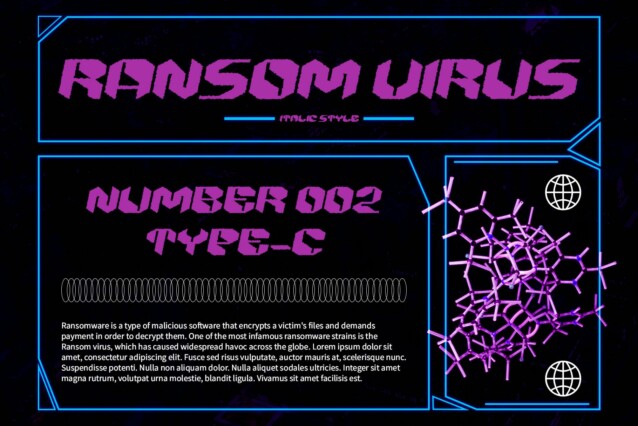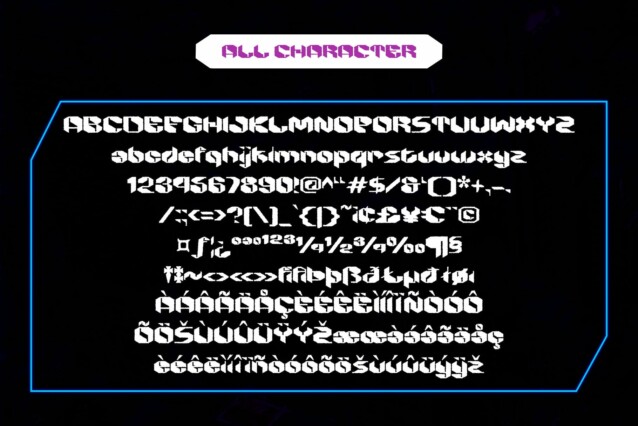
Alboth Rough Font
Alboth Rough Font: Embracing Futuristic Display Typography. Alboth Rough draws inspiration from the future, infusing its design with elements that evoke visions of innovation and progress. Its forward-thinking aesthetic sets it apart in the world of display fonts.
Rugged Yet Refined
Despite its futuristic inspiration, This font maintains a rugged charm with its rough texture effect. This juxtaposition of roughness and refinement adds character and uniqueness to any display project.